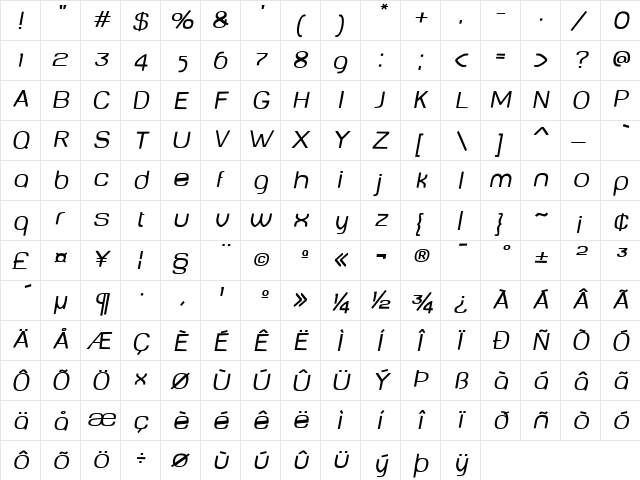
BabyMinePlump Italic
Design Context for BabyMinePlump Typeface
BabyMinePlump takes a measured approach to typography — its balanced proportions and neutral character make it a reliable workhorse for both digital and print work. The slanted form adds forward momentum and visual energy.
Pro Tip: Try BabyMinePlump for annotation and caption copy alongside an upright companion — the contrast in angle creates a dynamic but ordered typographic system.